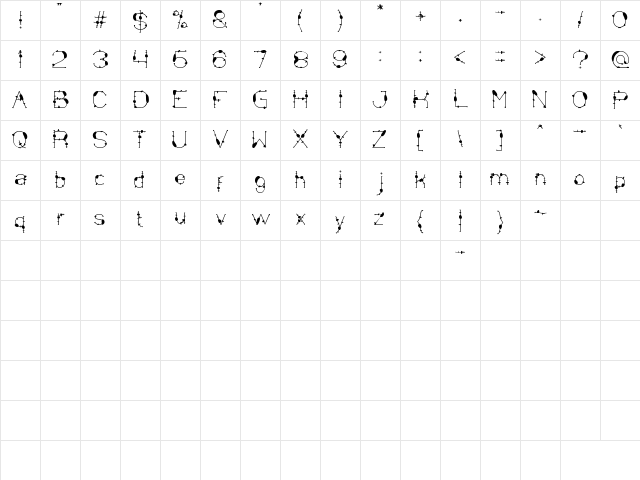
Mineral Oil resources Regular Free Font
Mineral Oil resources Regular
Design Context for Mineral Oil resources
Mineral Oil resources is a composed and adaptable typeface that performs quietly and consistently across a wide range of design contexts.
Pro Tip: Use Mineral Oil resources in both headline and body roles to test its range before committing to a single application.